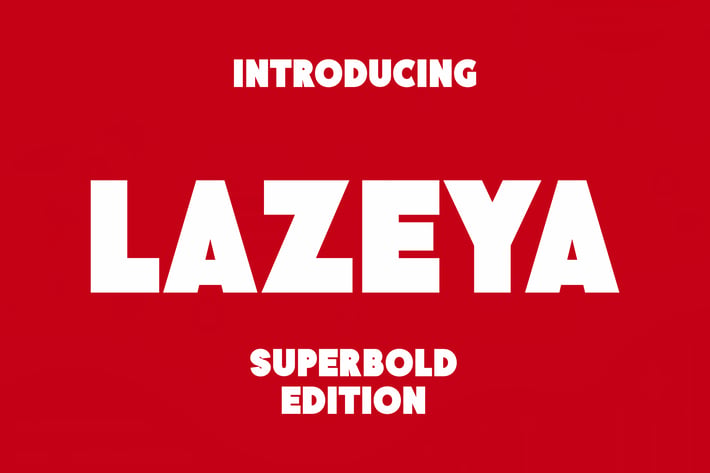
Lazeya - Bold Edition Font
Lazeya is a superbold font, perfect for anything that needs big, strong text—posters, book and holy book covers, magazines, and more. Its bold and fearless design ensures high readability and strong visual impact.